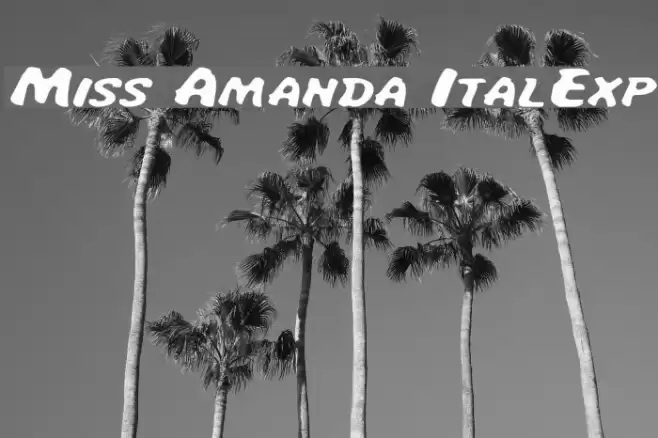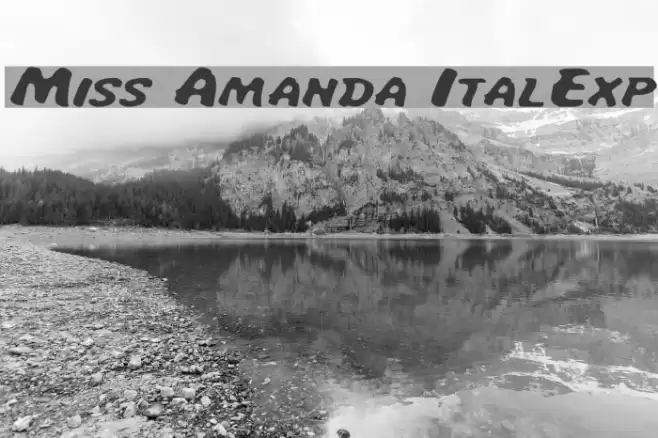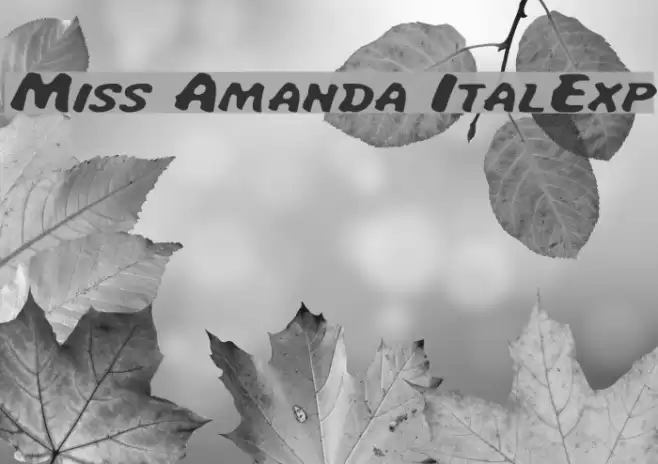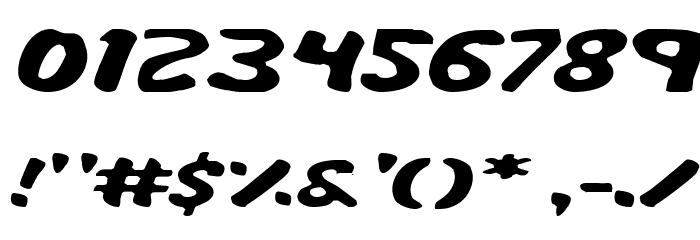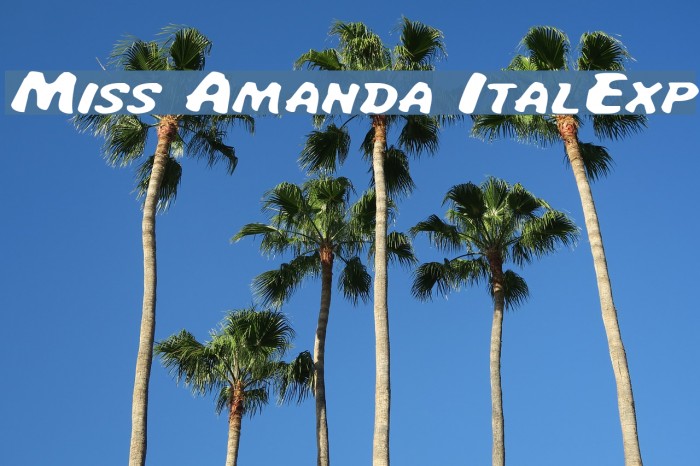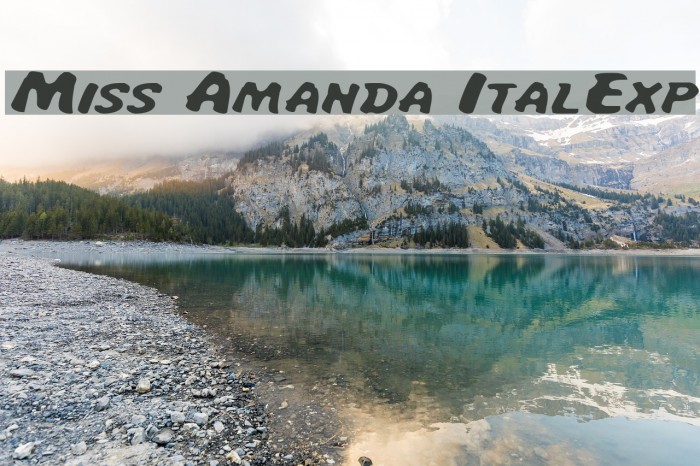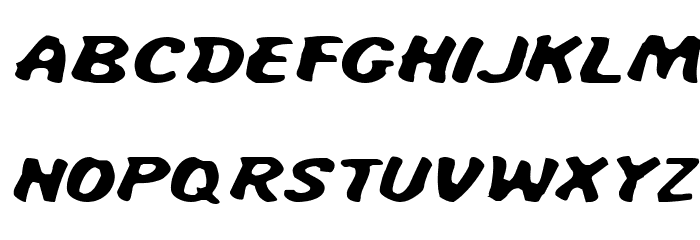
Miss Amanda ItalExp Font
Miss Amanda ItalExp Description
This font features a bold and expressive style with a playful, handwritten appearance. The characters are slightly slanted, giving a dynamic and energetic feel. The strokes are thick and rounded, contributing to a friendly and approachable look. The uppercase and lowercase letters maintain a consistent style, with a slight variation in size and shape that adds to the casual aesthetic. The numbers and special characters are designed to match the overall theme, ensuring uniformity across all elements. This font's unique style makes it suitable for creative and informal projects.
A bold, playful handwritten font with thick, rounded strokes and a dynamic slant from Comic fonts.
- Proposed Projects: Ideal for greeting cards, children's books, playful branding, and creative posters.
- Overall Style: Playful, Casual
- Use Case: Logos, Headlines, Informal Text